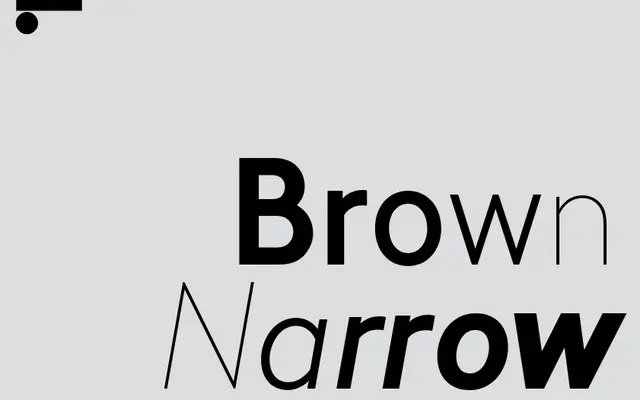
LL Brown Narrow
Lineto · Aurèle Sack · 2022
LL Brown Narrow specimen from Lineto
A narrow-proportion companion to LL Brown, Aurèle Sack's geometric sans rooted in Edward Johnston's London Underground lettering and Arno Drescher's Super Grotesk.
Released in spring 2022 alongside the Condensed cut, LL Brown Narrow extends the LL Brown superfamily into tighter proportions while retaining the geometric-humanist character that has made the parent family a fixture of fashion and corporate identity work. Six weights from Thin to Black each carry matching italics, and the broader superfamily covers Latin, Cyrillic, Greek, Hebrew and Arabic through collaborations with specialist script designers. The family has been adopted by clients including Celine, Moncler and Coach, reflecting its consistent performance across luxury and retail contexts.
Rooted in the geometric sans tradition via Johnston Sans and Super Grotesk, LL Brown Narrow is a condensed-proportion companion to LL Brown with the same humanist-geometric character.